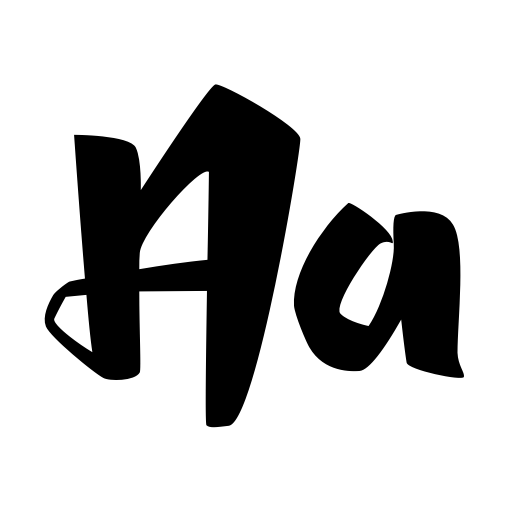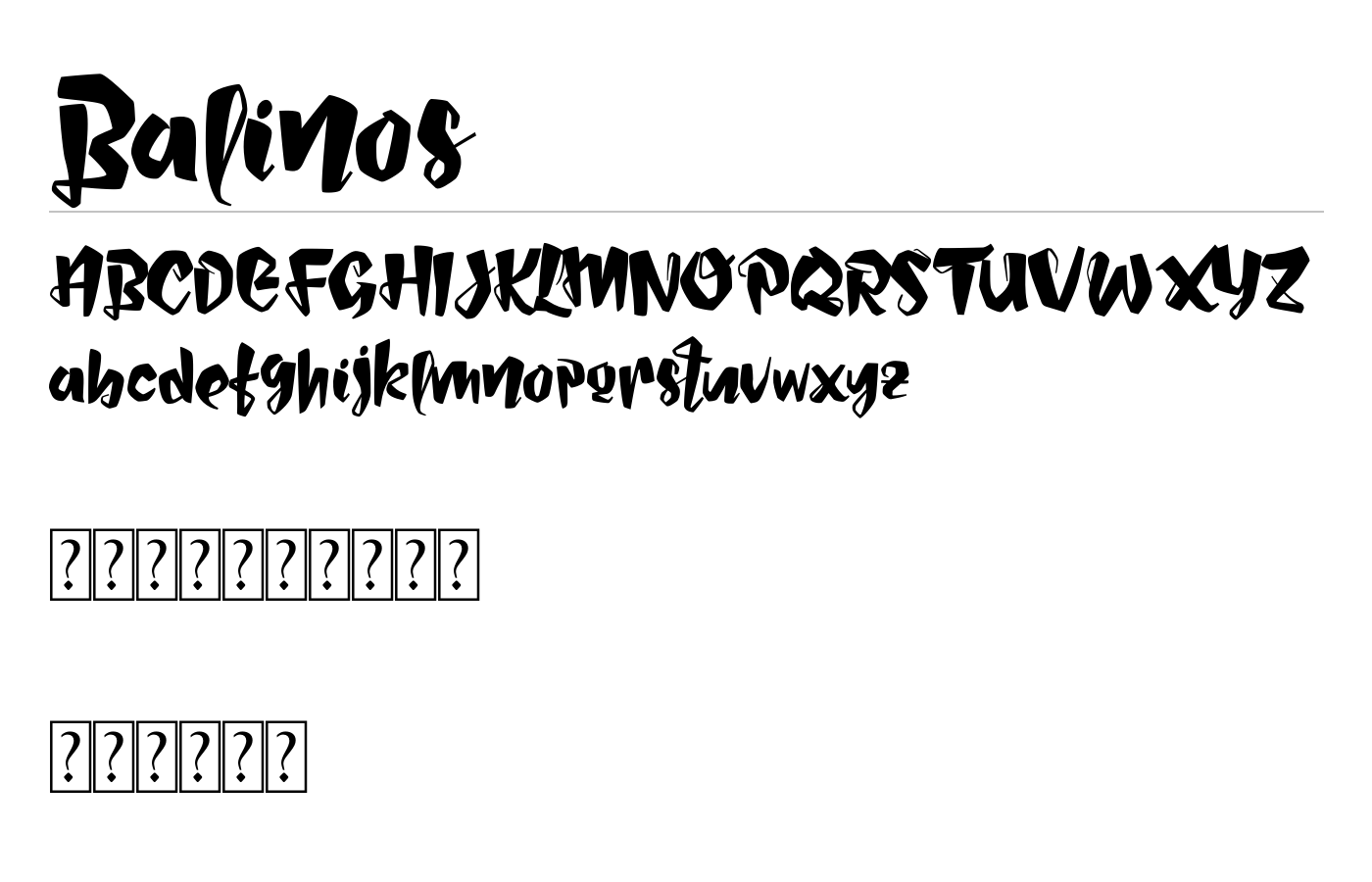
Balinos is a bold, handwritten script font with a dynamic and expressive style, featuring sharp, angular strokes and a lively, casual energy. Its irregular letterforms and strong brush-like texture give it a playful yet edgy personality, making it ideal for creative branding, posters, and eye-catching headlines that seek a handcrafted, artistic vibe. This font works best where a distinctive, informal look is desired to convey uniqueness and creativity.
Balinos Font
About Balinos Font
| Designer | Gunawan Syarifudin |